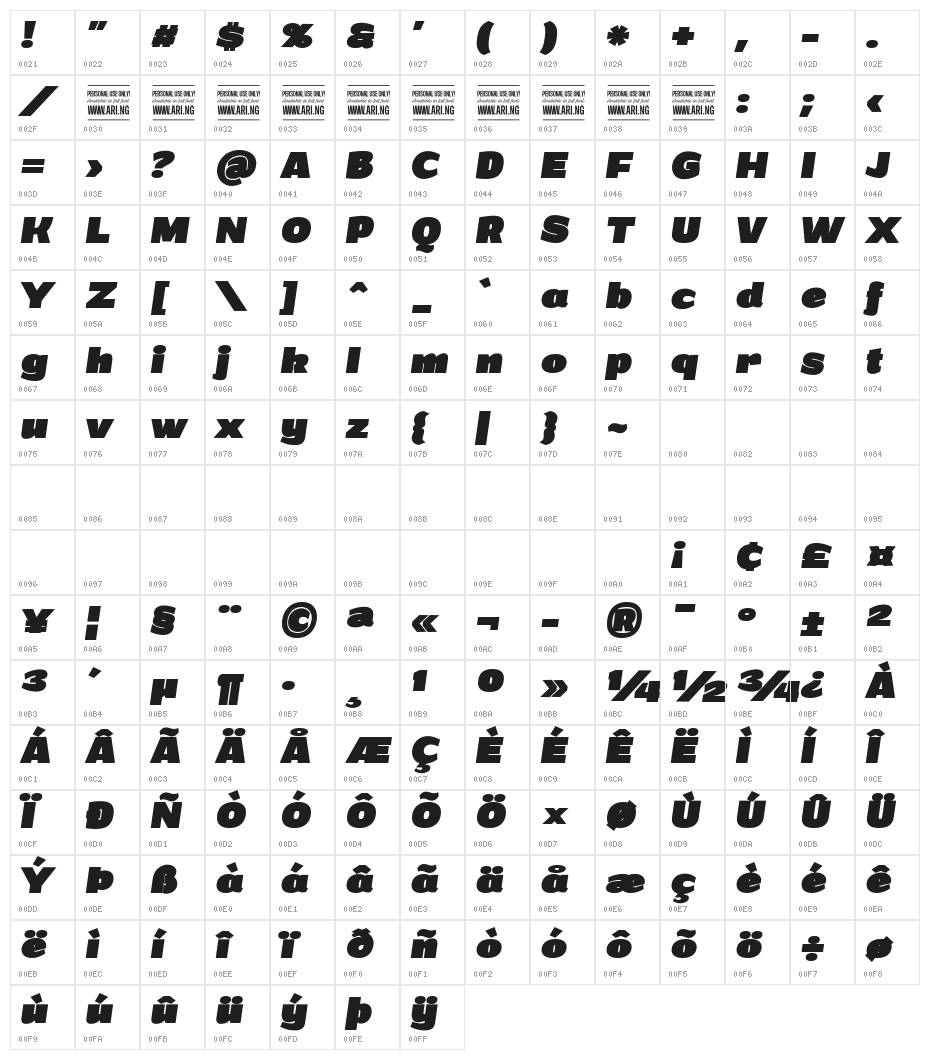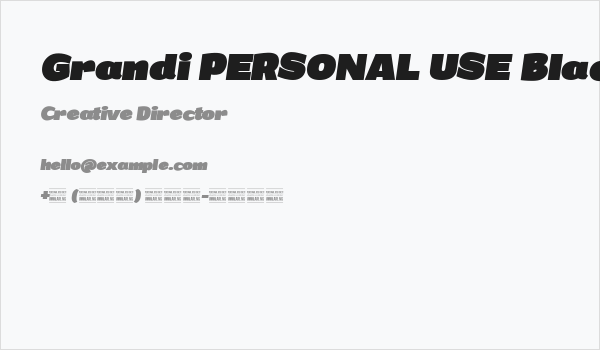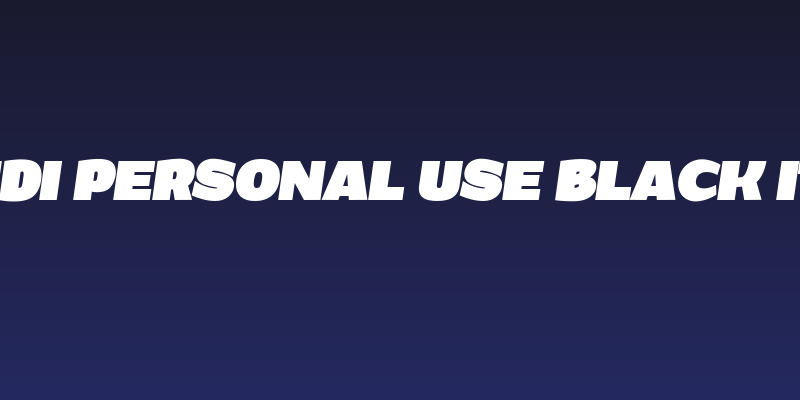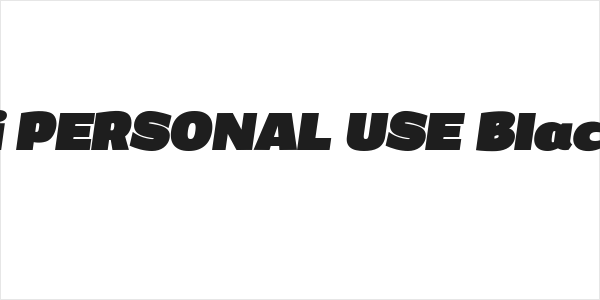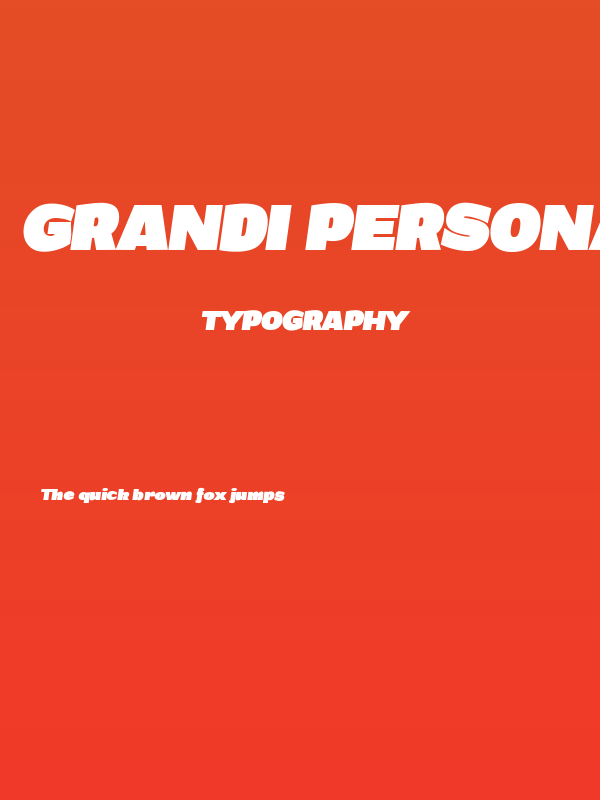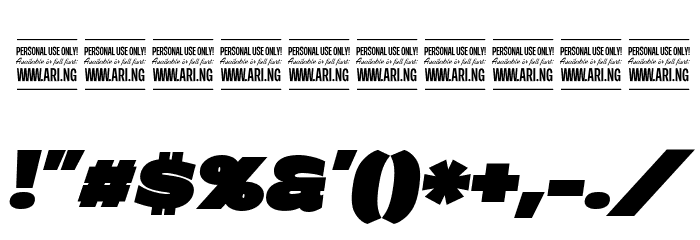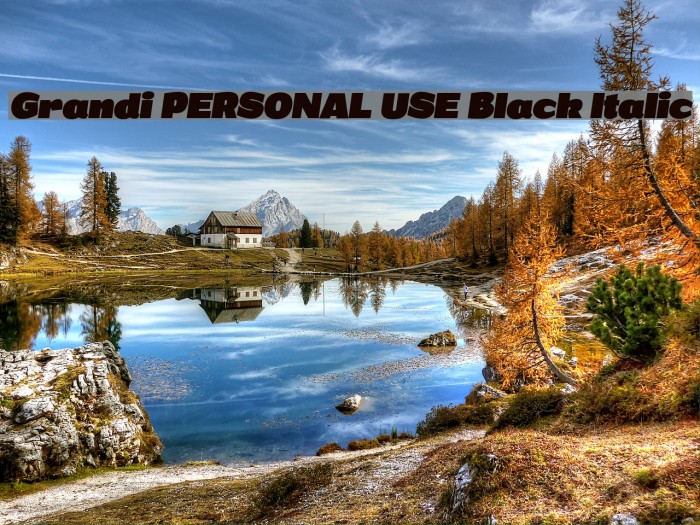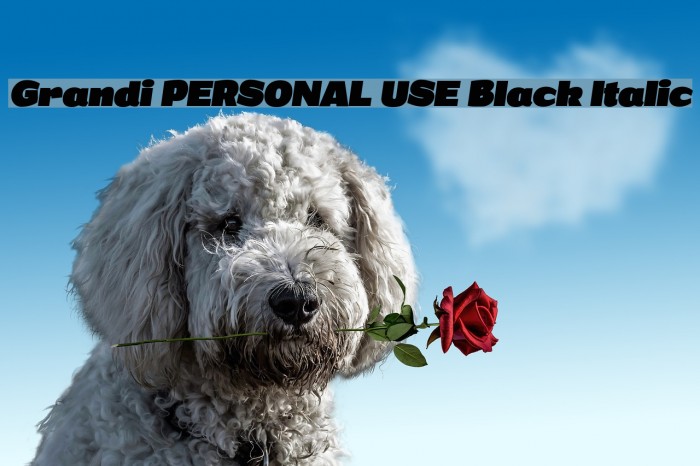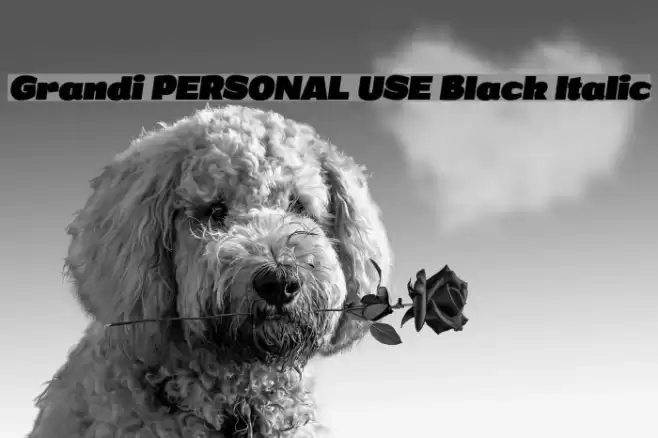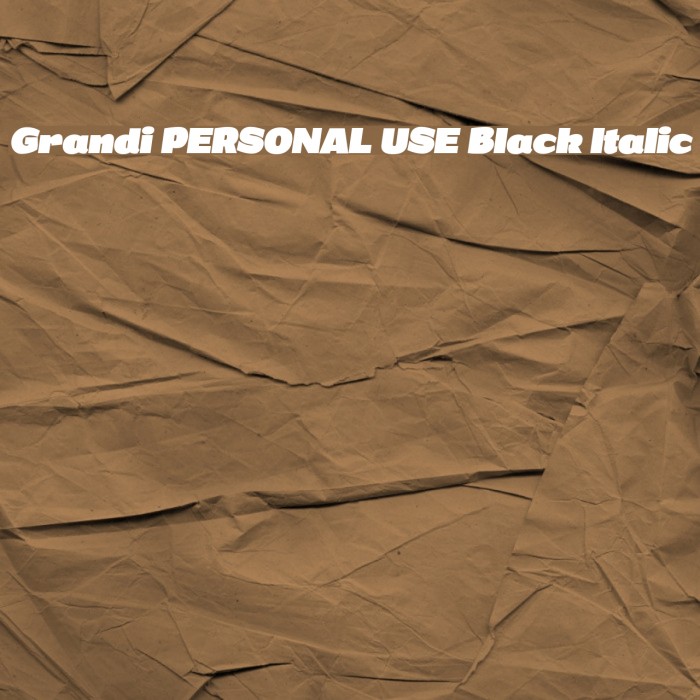
Grandi PERSONAL USE Black Italic Font
Grandi PERSONAL USE Black Italic Description
This font exhibits a bold and dynamic style with a strong italic slant, giving it a sense of movement and energy. The characters are thick and robust, providing a powerful visual impact. The uppercase and lowercase letters maintain a consistent weight, ensuring readability while emphasizing their boldness. The numerals and special characters are equally bold, complementing the overall design. This font's style is suitable for making a statement, with its heavy weight and italicized form adding a modern and assertive touch.
| Proposed Projects | Ideal for headlines, posters, branding, and any project requiring a strong visual impact. |